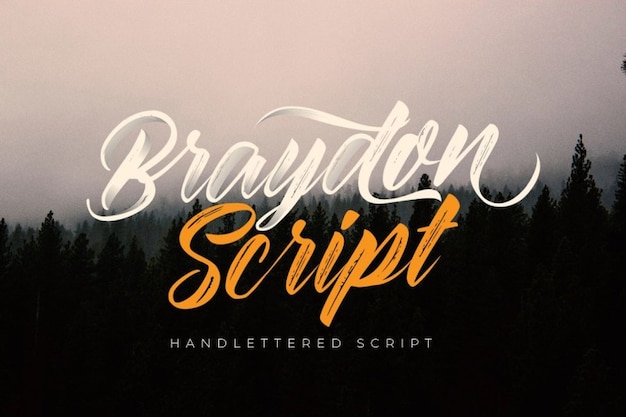
Braydon Font
Lettering Manual Studio
Braydon font is a harmonious blend of handwritten warmth and brushstroke elegance. Each character exudes a touch of artistic charm, turning your text into a masterpiece of refined creativity. It's the perfect choice when you want to add an authentic, yet elegant, touch to your designs. Braydon is the font that effortlessly marries handwritten flair with brushstroke sophistication, making your words a captivating expression of timeless style and creativity.